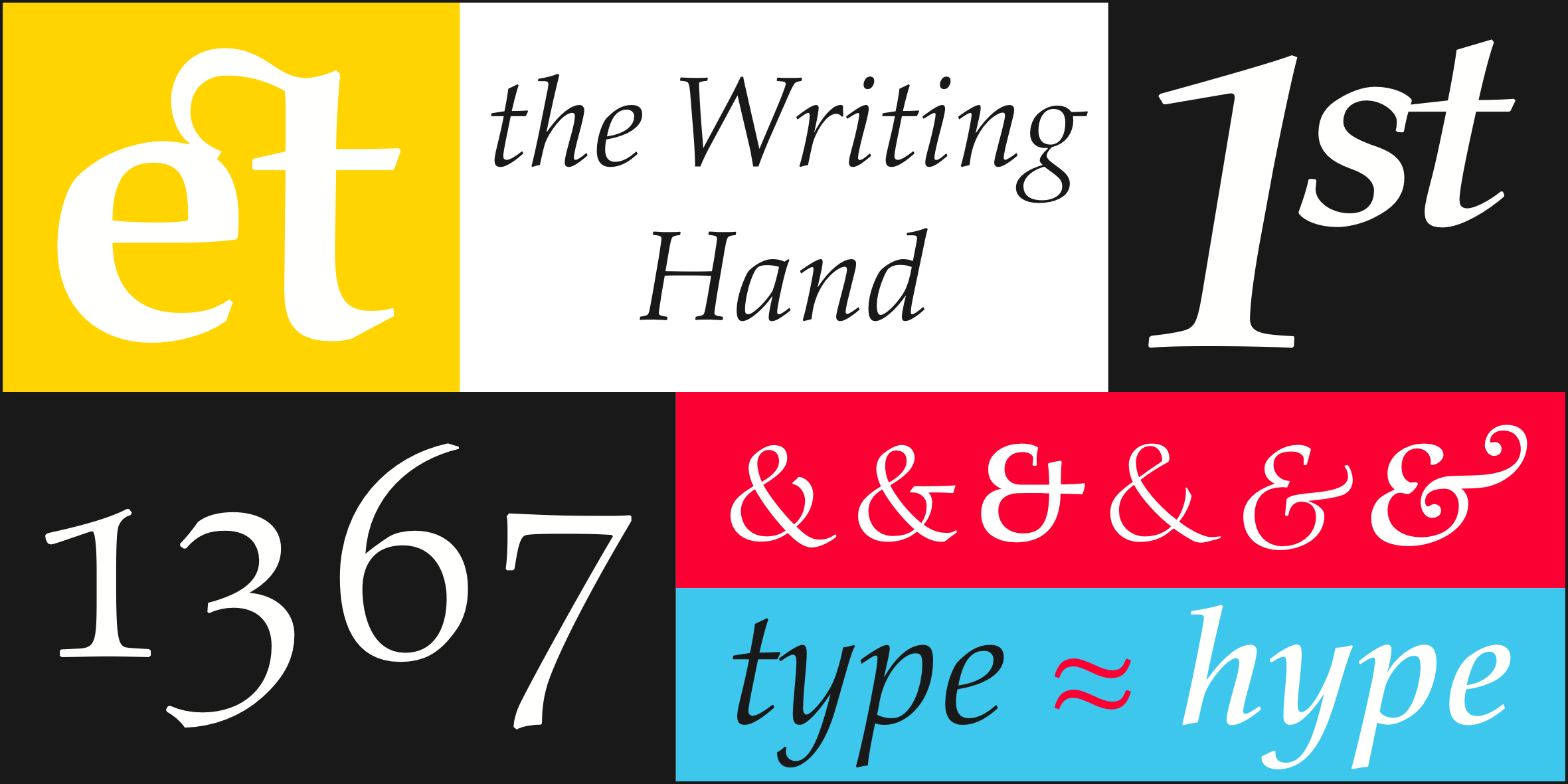
Palatino Nova Font excels in distinguished design applications including academic publishing, prestigious book design, scholarly journals, cultural institution materials, fine art catalogues, classical music programs, literary magazine layouts, university communications, heritage brand identity, and elegant editorial publications. This refined typeface brings humanist sophistication to intellectual communication projects.
What makes Palatino Nova Font truly exciting is its perfect fusion of Renaissance calligraphic traditions with Hermann Zapf's modern typographic mastery and enhanced digital optimization. The font features beautifully proportioned letterforms with subtle contrast and organic curves that create exceptional reading comfort while maintaining classical dignity. Its intellectual character and artistic heritage make it ideal for organizations seeking to convey wisdom, cultural depth, and respect for humanistic learning traditions.
The Palatino Nova Font family encompasses comprehensive weights including Light, Regular, Medium, Bold, and Imperial variations with corresponding Italic styles and extensive linguistic support. These sophisticated options provide designers with complete typographic flexibility to create elegant hierarchical systems that honor Renaissance typography while meeting contemporary international publication standards.
Whether you're developing academic branding, creating scholarly publications, or designing culturally-focused campaigns, Palatino Nova Font Free Download delivers the intellectual authority and typographic excellence that distinguished educational projects require. Its exceptional heritage and scholarly appeal make it invaluable for designers working with universities, publishing houses, and cultural institutions requiring authentic humanist typography that reflects deep learning, artistic appreciation, and commitment to preserving intellectual traditions and classical values.